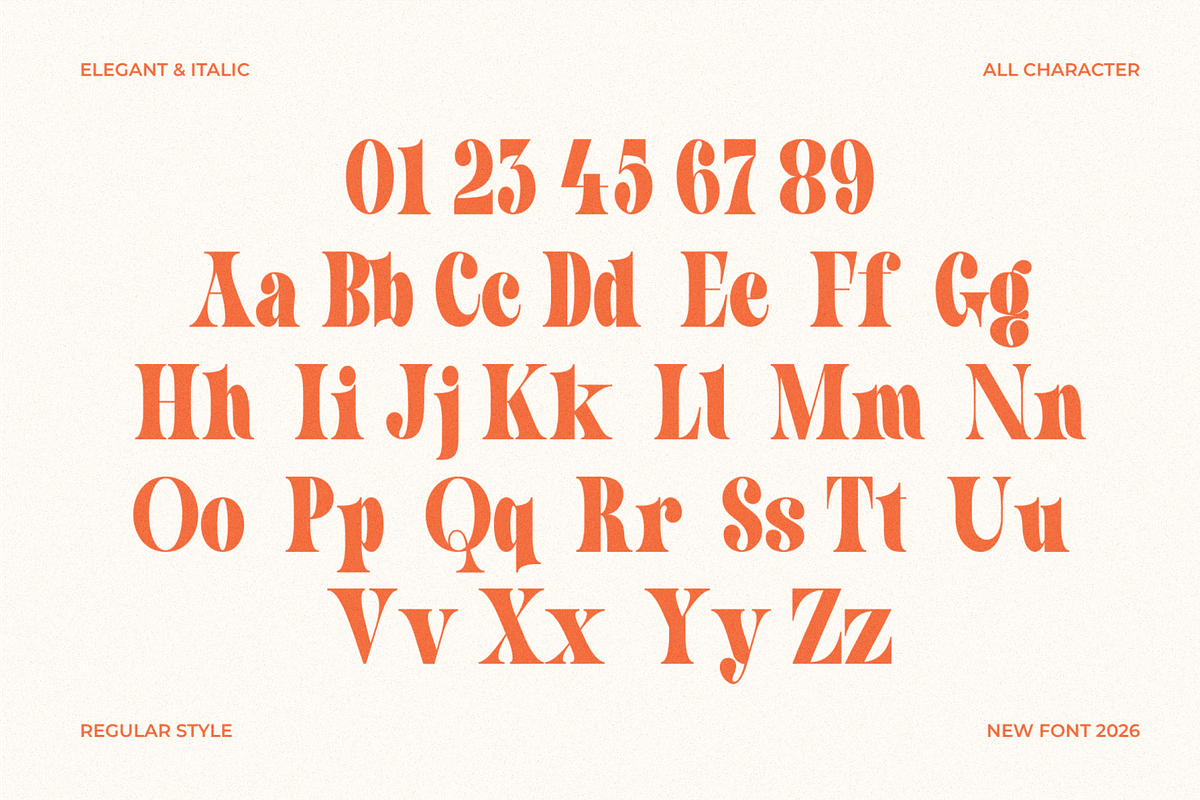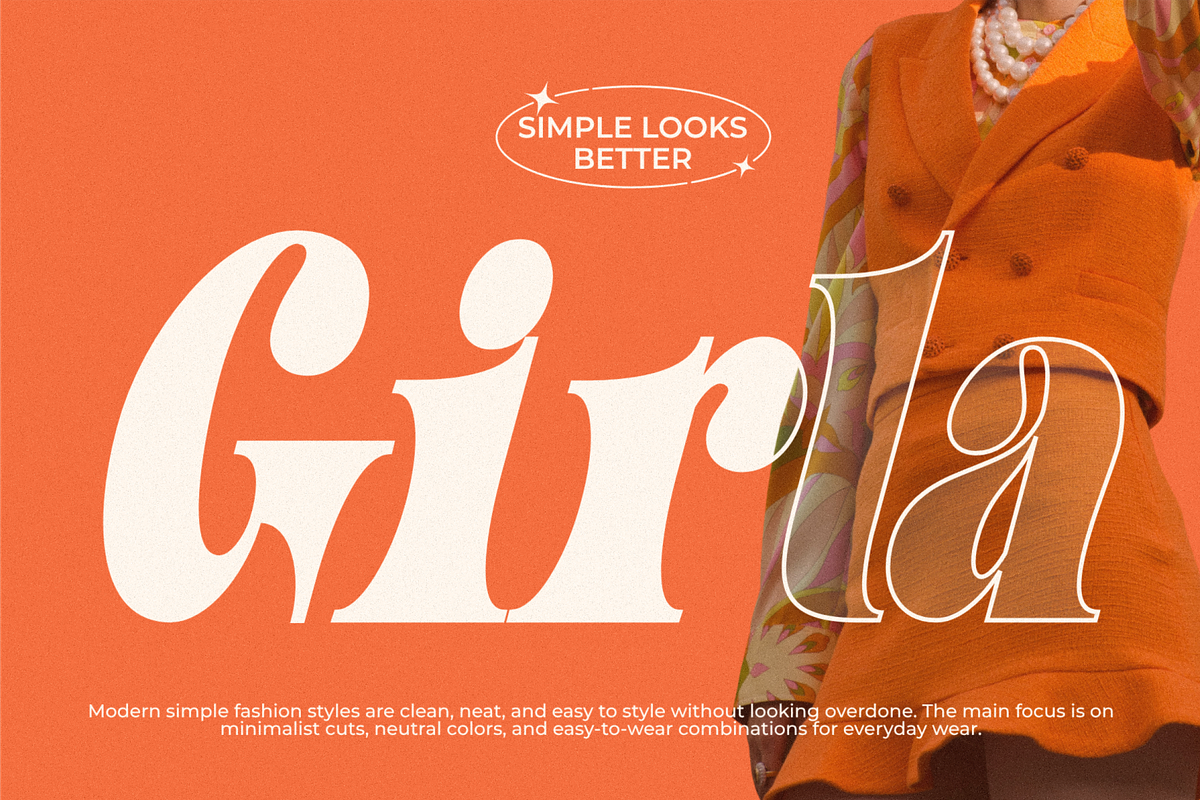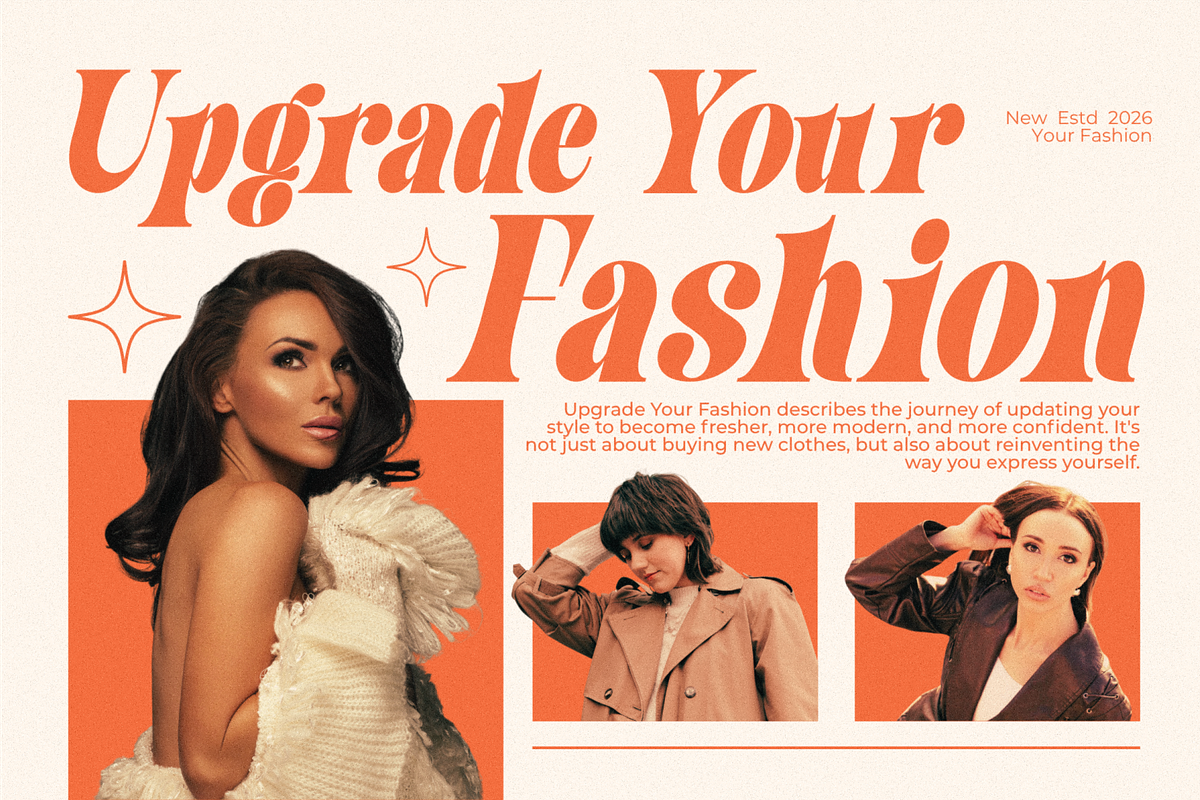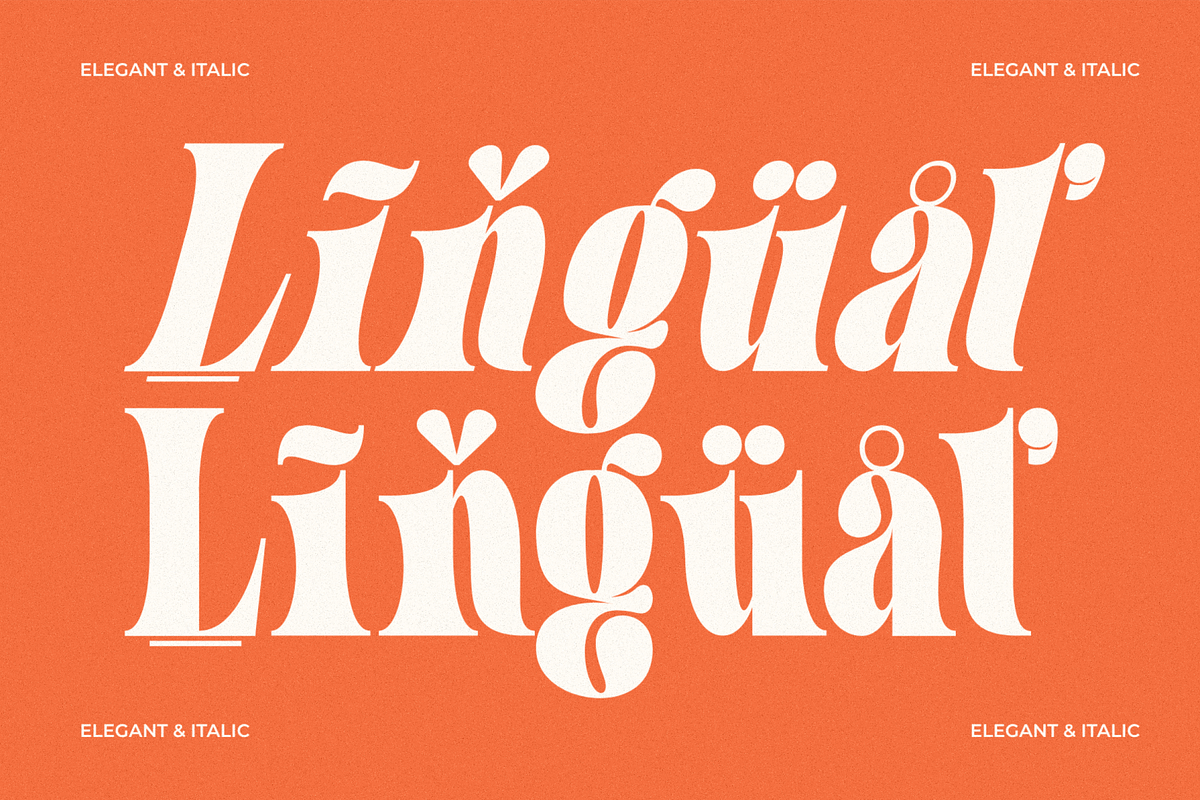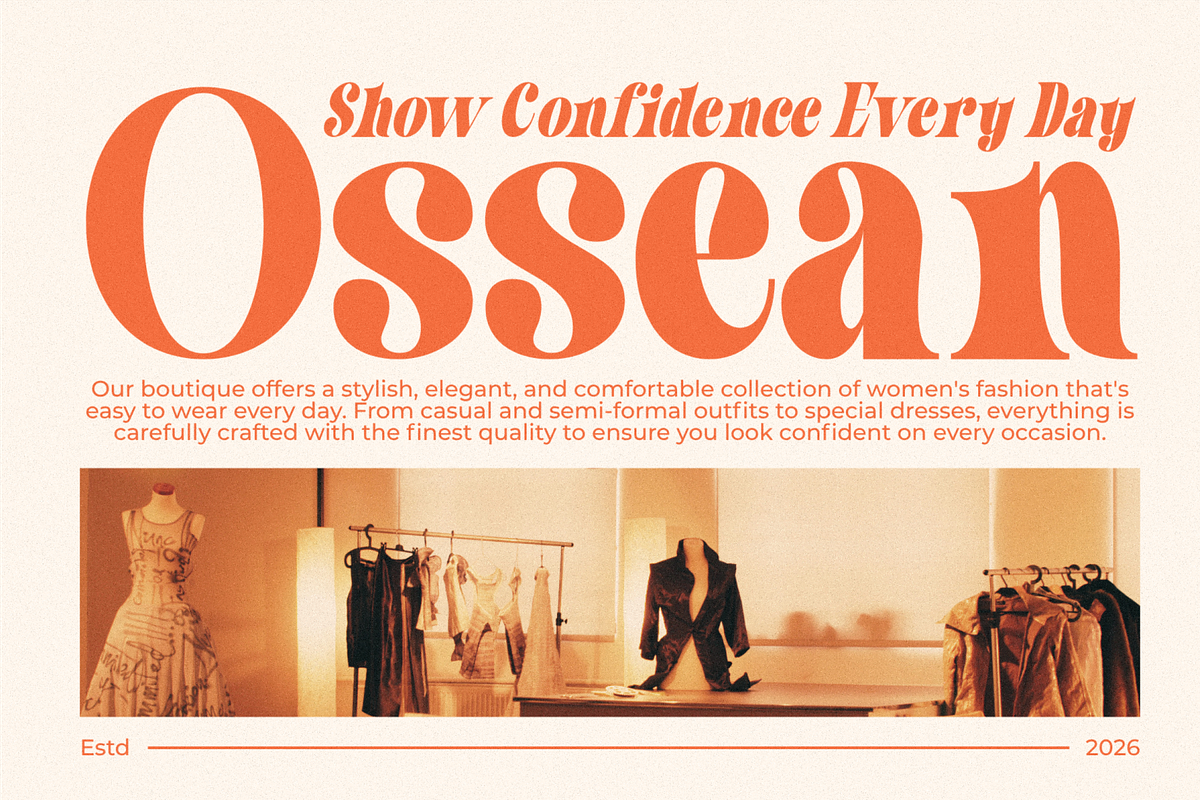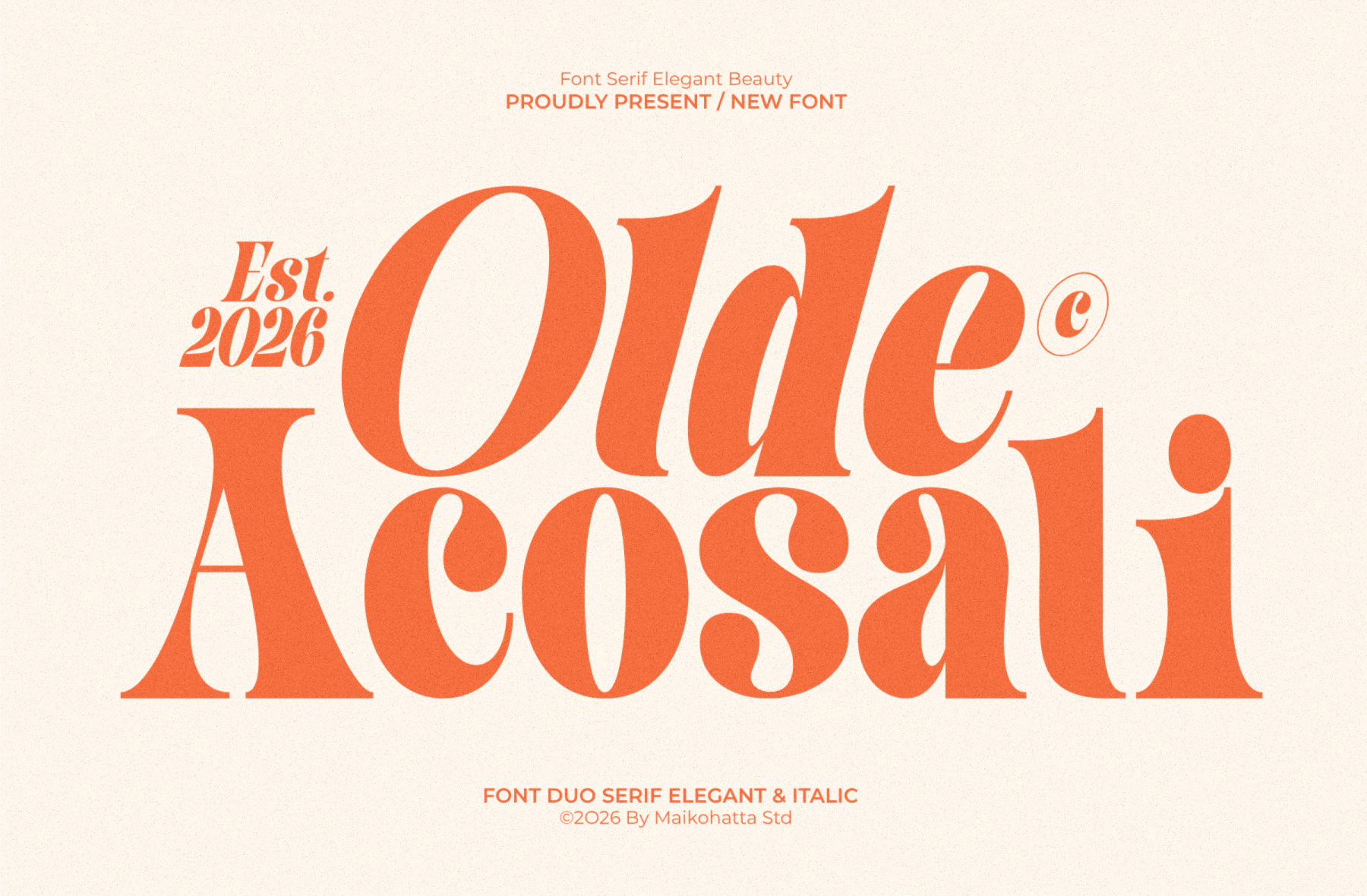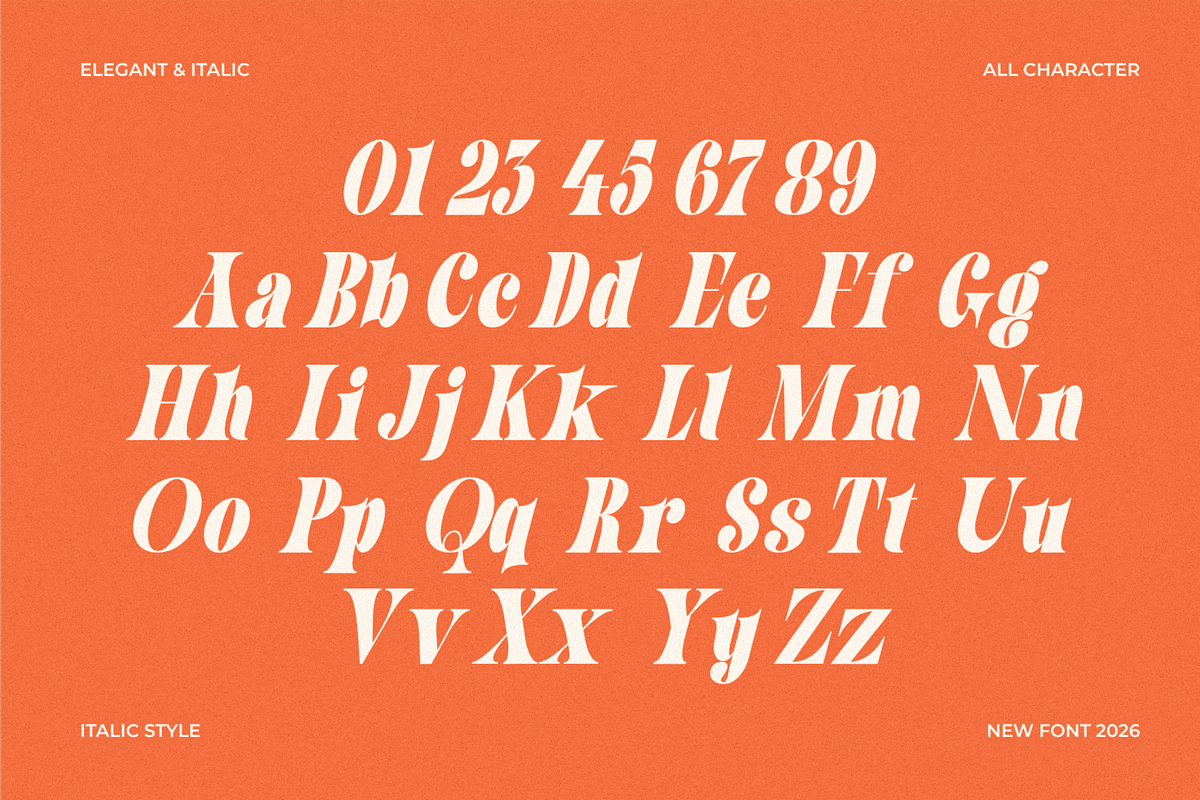
Olde Acosai – Elegant Serif Duo Font
Introducing our new product Olde Acosai – Elegant Serif Duo Font
Olde Acosai is a refined and sophisticated serif duo font that blends timeless elegance with modern style. Designed with high contrast strokes, smooth curves, and stylish italic companions, this typeface brings a luxurious and graceful feel to any design.
This font duo includes a classic serif and a beautifully crafted italic version, making it perfect for creating stunning typography combinations. Whether you're working on branding, editorial layouts, wedding invitations, or high-end packaging, Olde Acosai delivers a premium and professional look.
With its unique letterforms and artistic details, Olde Acosai stands out in both large headlines and delicate text compositions, giving your projects a distinctive and memorable touch.
Regular Serif Font
Italic Serif Font
Uppercase & Lowercase Letters